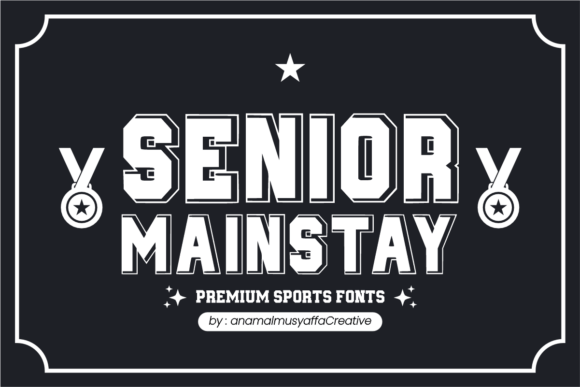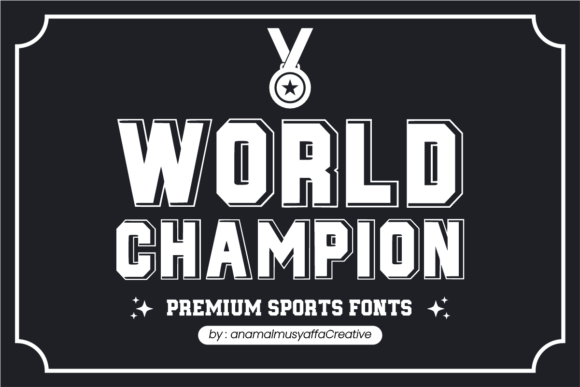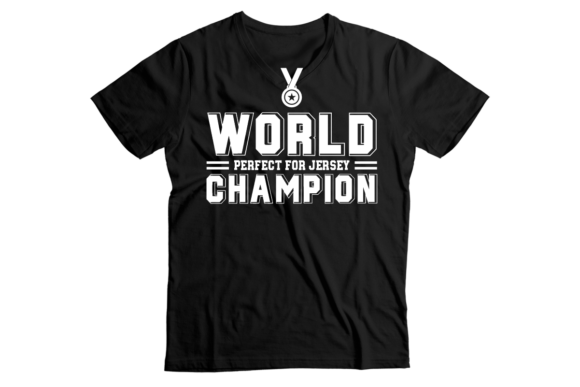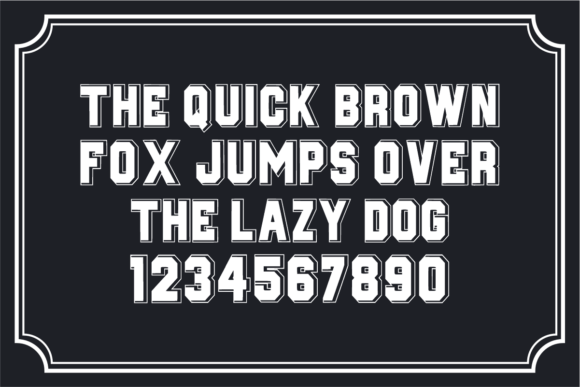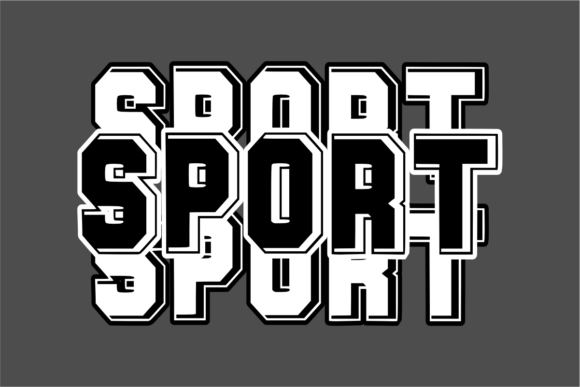
Introducing Championship Jersey Font: The Ultimate Choice for Sports-Inspired Typography
Are you a designer, crafter, or sports enthusiast looking for a font that embodies the spirit of competition and excellence? Look no further than the Championship Jersey Font! This stunning typeface is a masterful blend of timeless and contemporary sports typography, composed exclusively of uppercase letters. Each letterform is meticulously crafted to radiate potency and allure, ensuring effortless recognition and application.
The Design Behind the Font
The Championship Jersey Font is designed to be a versatile and attention-grabbing choice for various applications. Its unique design combines classic sports typography elements with modern flair, making it perfect for sports-inspired arts and crafts, heat-transferred t-shirts, coffee mugs, tote bags, and animated visuals. The font’s bold and dynamic appearance is sure to make your designs stand out from the crowd.
The Championship Jersey Font is not just limited to sports-themed designs. Its versatility makes it an excellent choice for a wide range of creative projects, including:
- Sports-inspired arts and crafts: Create stunning designs for jerseys, t-shirts, and other sports apparel.
- Heat-transferred t-shirts: Add a professional touch to your custom t-shirt designs.
- Coffee mugs: Design eye-catching coffee mugs that will make your friends and family take notice.
- Tote bags: Create stylish and functional tote bags perfect for grocery shopping, beach trips, or everyday use.
- Animated visuals: Add a dynamic touch to your sports-themed animations, videos, or social media graphics.
- Comic titles: Use the Championship Jersey Font to create bold and attention-grabbing titles for your comic books, graphic novels, or webcomics.
Why Choose Championship Jersey Font?
So, what sets the Championship Jersey Font apart from other typefaces? Here are just a few reasons why designers and crafters love this font:
- Unique design: The Championship Jersey Font boasts a distinctive design that is both classic and modern.
- Versatility: Use this font for a wide range of applications, from sports apparel to animated visuals.
- Easy to read: The font’s bold and clear design ensures effortless recognition, even at small sizes.
- Uppercase excellence: Composed exclusively of uppercase letters, this font is perfect for creating bold and eye-catching designs.
Unleash Your Creativity with Championship Jersey Font
The Championship Jersey Font is more than just a typeface – it’s a creative tool that can help you unlock your full potential as a designer or crafter. With its unique design, versatility, and ease of use, this font is perfect for:
- Creating stunning sports-themed designs that will leave a lasting impression.
- Adding a professional touch to your custom apparel and merchandise.
- Experimenting with new and innovative design ideas.
In conclusion, the Championship Jersey Font is an exceptional choice for designers, crafters, and sports enthusiasts looking for a unique and versatile typeface. Its bold and dynamic design, combined with its ease of use, makes it perfect for a wide range of creative projects. Whether you’re creating sports-inspired arts and crafts, custom apparel, or animated visuals, this font is sure to help you unleash your full creative potential.